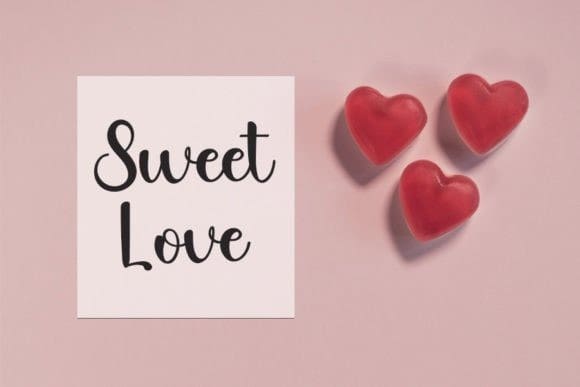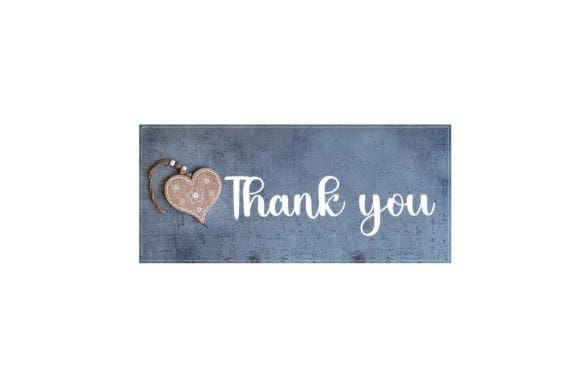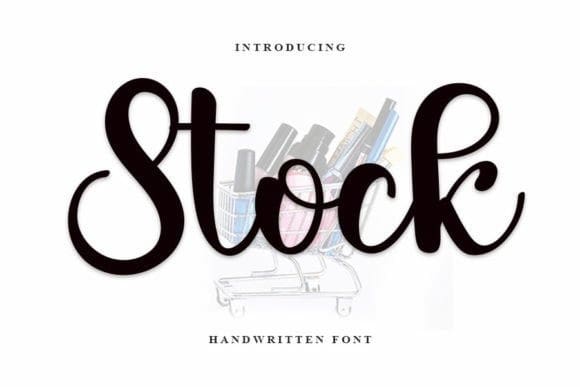
Stock Script Font
Stock Script Font is a well-balanced handwritten font with a contemporary atmosphere and impeccable form, inspired by a timeless classic calligraphy. It will look outstanding in a wide range of contexts.